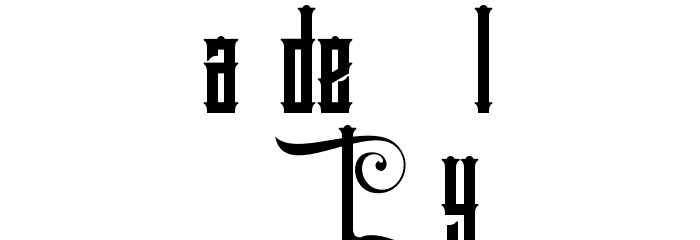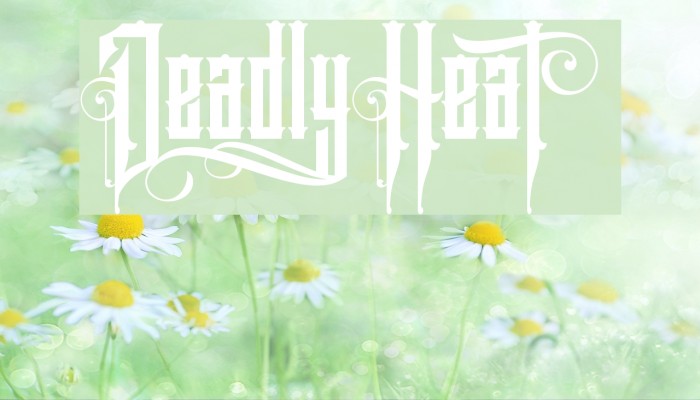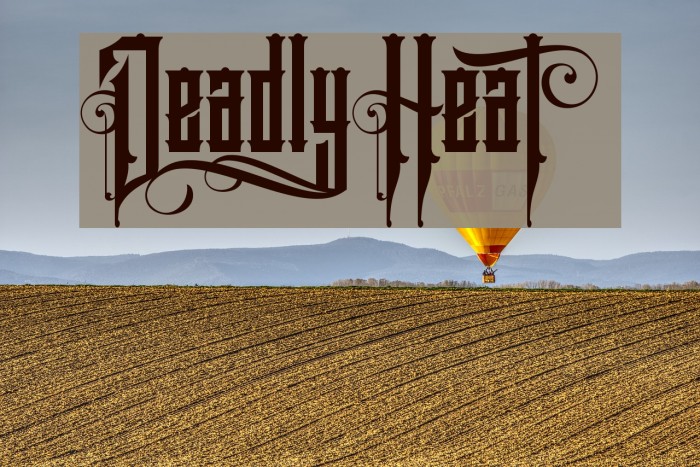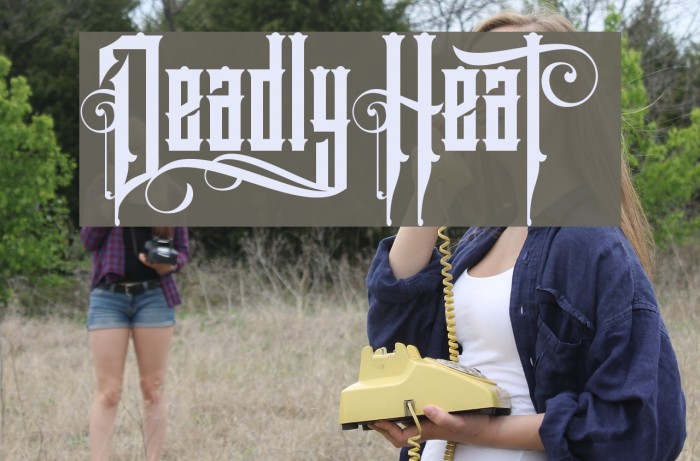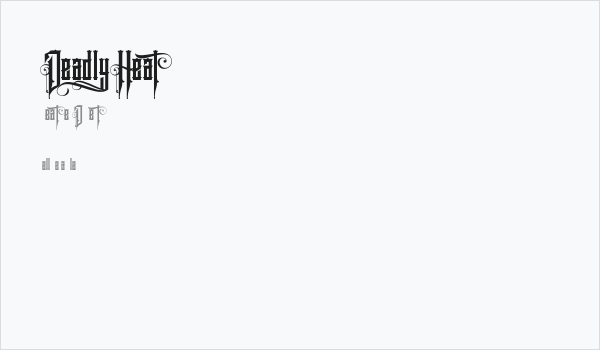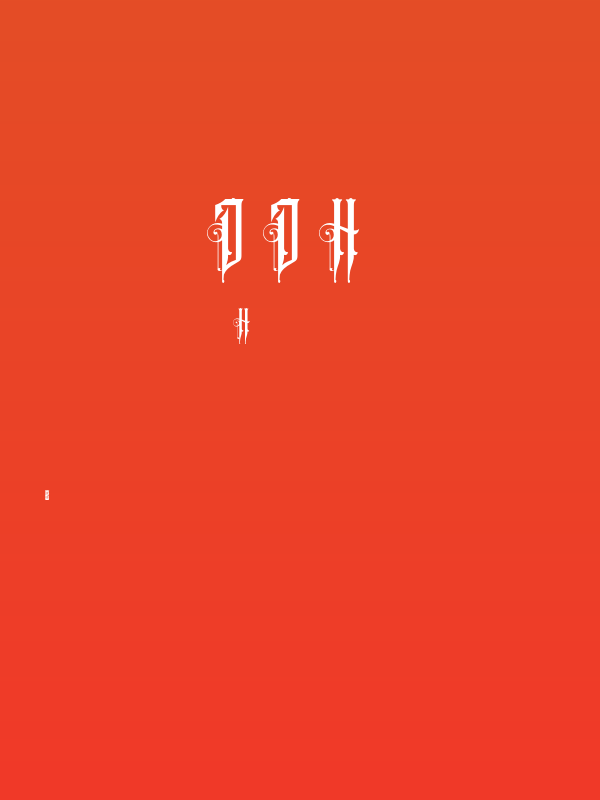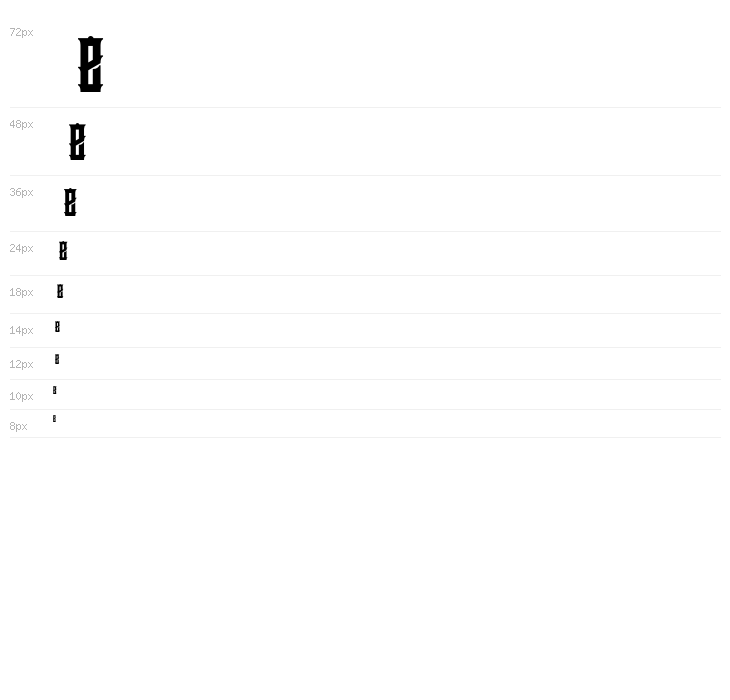
DeadlyHeat Font
This font exudes a gothic and medieval aura, characterized by its intricate and ornate design. The letters are tall and narrow, with elaborate flourishes and decorative elements that add a sense of drama and elegance. The strokes are bold and pronounced, with high contrast between thick and thin lines, giving the font a striking appearance. The overall style is reminiscent of historical manuscripts and traditional blackletter typefaces, making it ideal for projects that require a touch of antiquity and sophistication.
A gothic, ornate font with high contrast and decorative flourishes.
- Proposed Projects: Ideal for use in historical or fantasy-themed projects, book covers, posters, and branding that requires a medieval or dramatic flair.
- Character Spacing: Tight
- Overall Style: Gothic, Medieval